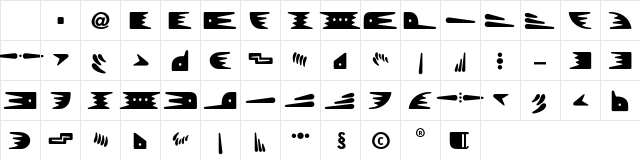
Complete Bronz Ornaments glyph index. Displaying only characters natively supported by Bronz Ornaments font.
Bronz is built around its visual character rather than neutral utility - its distinctive forms are designed to make an impression at display sizes.
Font Pairing: Pair with a clean neutral sans-serif for body copy to let Bronz's character lead without overwhelming the composition.
Pro Tip: Use Bronz exclusively at display sizes - it was designed to be seen, not read at length. Let a neutral companion handle body copy.